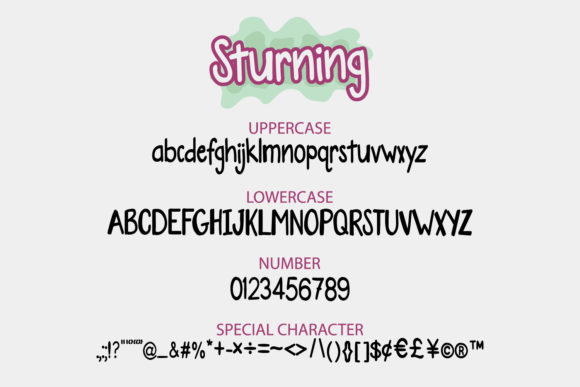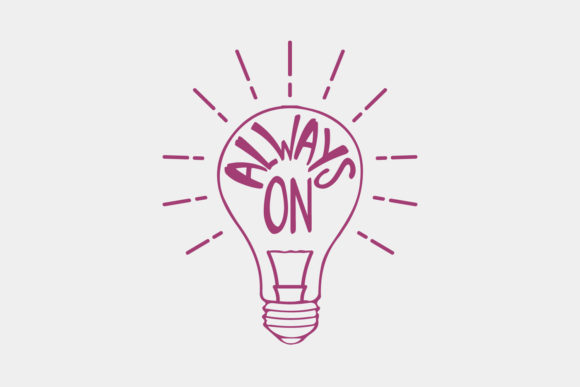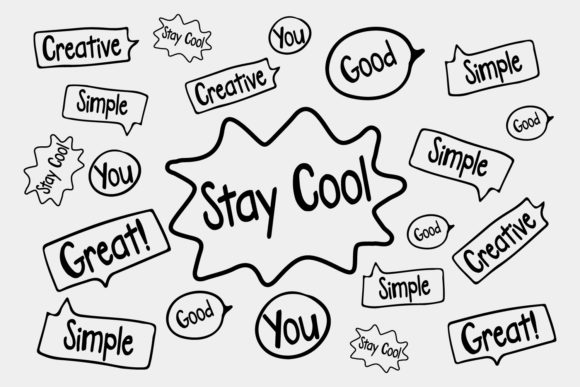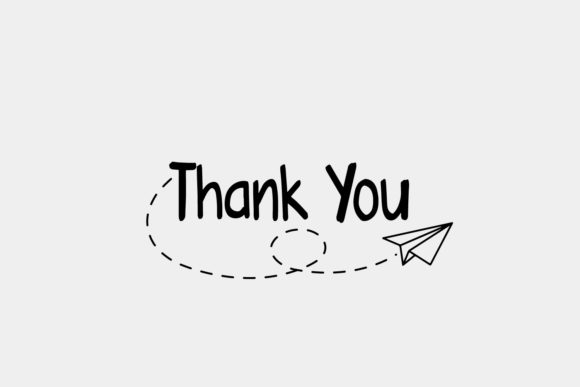
Sturning Font
About Sturning Font
Sturning is a whimsical script font with a relaxed theme, featuring a lovely style. No matter the topic, this font will be an incredibly asset to your fonts’ library, as it has the potential to elevate any creation.